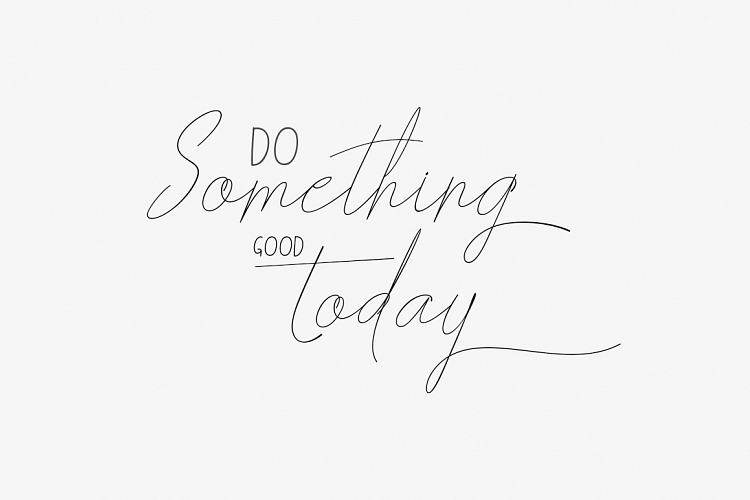
Nether Handwritten Font
Introducing Nether Handwritten Font. Nether designed and shared for free by Earning.Type co. Nether monoline script font-has 3 types of fonts with a different characters. Having one type of monoline sans serif style to complement the combination of all three of those fonts.